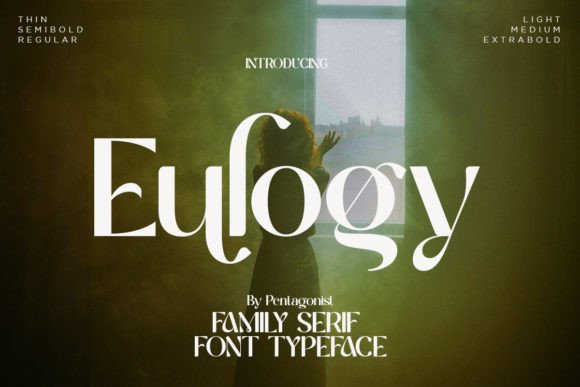
Introducing Eulogy Font, a resplendent serif creation that embodies timeless beauty and undeniable elegance. With its intricate curves and delicate serifs, this font family exudes a sense of sophistication and luxury, elevating your digital creations to new heights.
Eulogy's unique design, crafted by the talented Pentagonistudio, captures the essence of high-end branding and editorial design. Its graceful lines and sweeping terminals add a touch of refinement to any project, making it the perfect choice for those seeking a font that speaks volumes.
As a PUA-encoded font, Eulogy grants you effortless access to its entire repertoire of glyphs and swashes, empowering you to explore a world of creative possibilities. Unleash your imagination and let Eulogy's characters dance across your designs, creating captivating headlines, alluring logos, and enchanting invitations that leave a lasting impression.
Fashionistas, rejoice! Eulogy Font is your ultimate companion in the realm of style and grace. Its innate ability to transform ordinary words into extraordinary expressions makes it the ideal choice for fashion blogs, where every detail matters. Elevate your content with Eulogy's timeless appeal, captivating your readers with each stroke of its exquisite characters.
Eulogy Font is not just a collection of letters; it's an expression of artistry, a testament to the power of typography. Its versatility extends beyond fashion, seamlessly adapting to a myriad of projects, from elegant wedding invitations to polished business cards. Experiment with its possibilities and discover the endless creative avenues it unlocks.